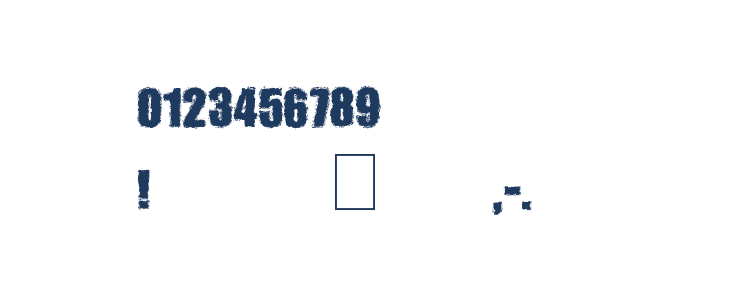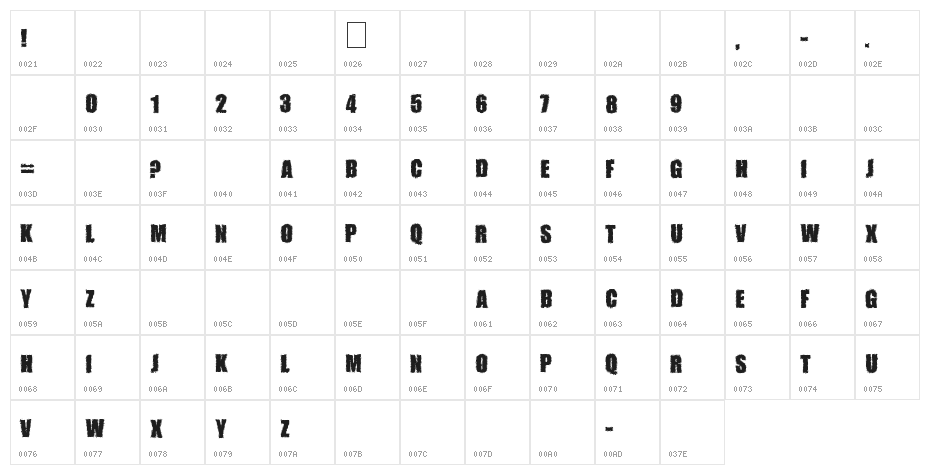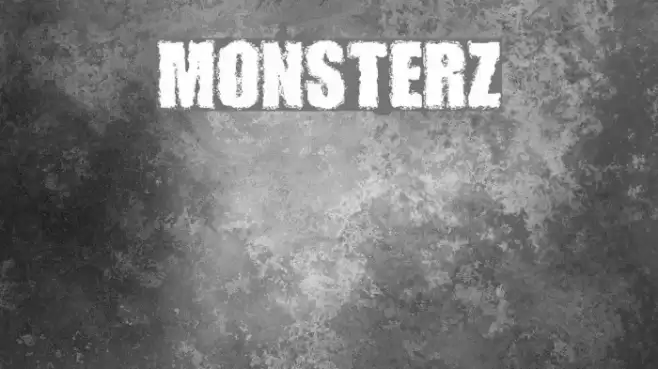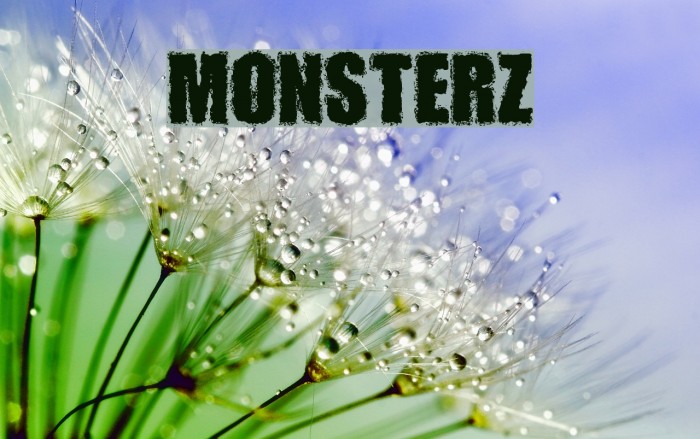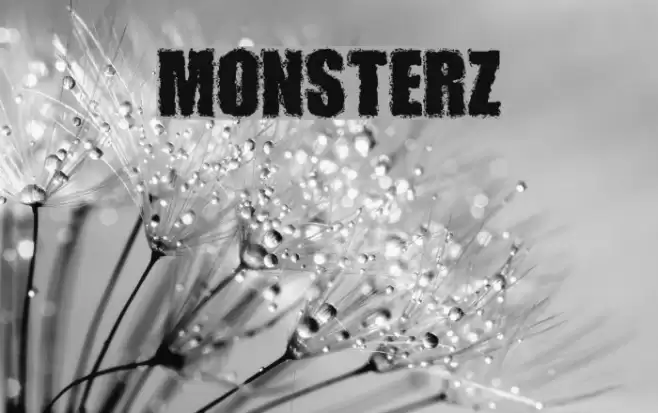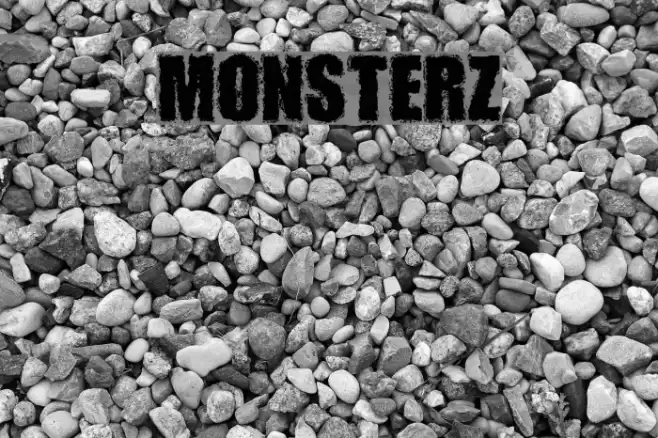
MONSTERZ Font
MONSTERZ Description
This font features a bold and rugged design with a distressed texture that gives it a gritty, worn appearance. The characters are uppercase and have a strong presence, making them ideal for impactful designs. The texture adds a unique, organic feel, reminiscent of grunge or urban styles. The strokes are thick and uneven, contributing to its raw and edgy look. This font is perfect for projects that require a bold statement, such as posters, album covers, or branding for edgy products. Its distinctive style ensures it stands out in any design context.
| Overall Style | Grunge, Urban, Edgy |
| Proposed Projects | Posters, album covers, edgy branding, urban-themed designs. |